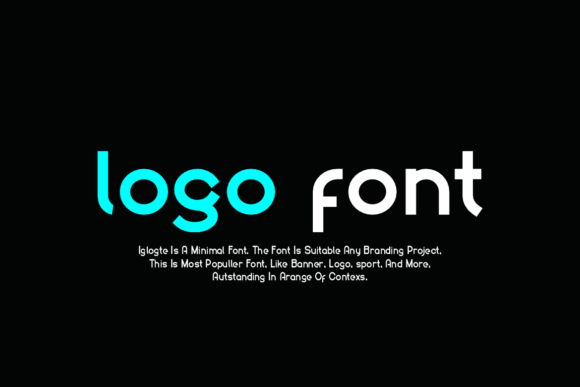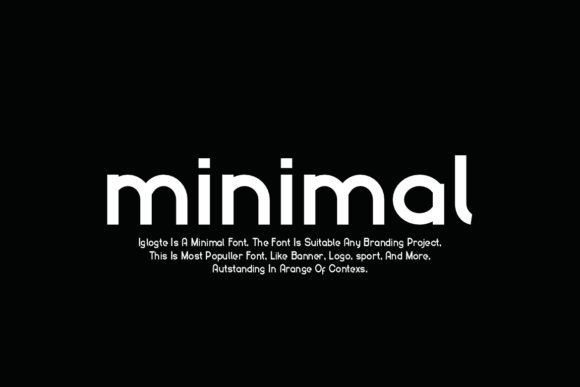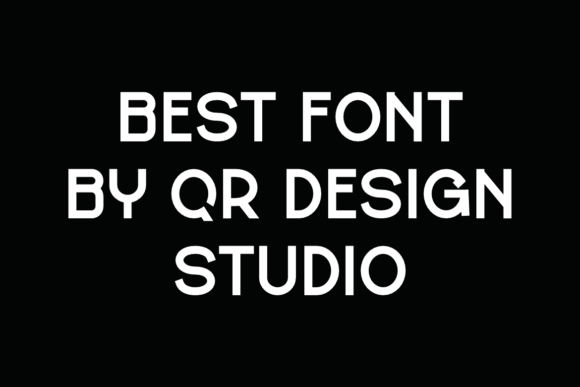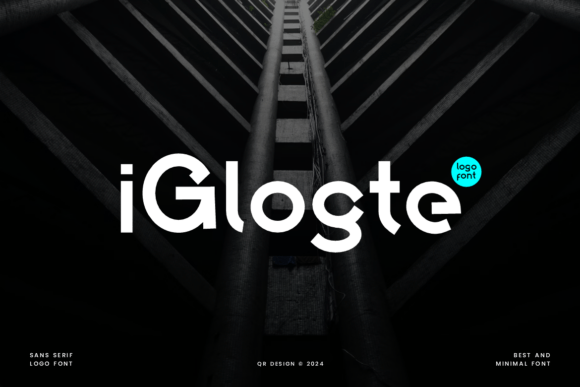
Introduction to Iglogte Font
Iglogte is a lovely and timeless sans serif font.
Key Features of Iglogte Font
Why Choose Iglogte Font?
Iglogte Font offers exceptional quality and versatility, making it a valuable addition to your design toolkit. Whether you’re creating for personal projects or commercial use, Iglogte Font delivers professional results.